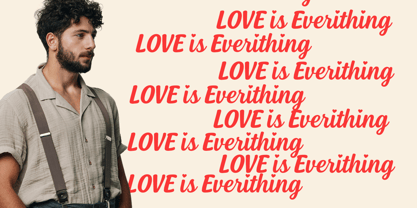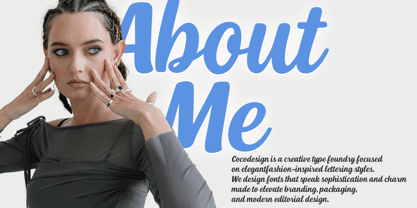
Marline
by Cocodesign
The Marline Font Family was designed by Muhammad Zaini and published by Cocodesign. Marline contains 2 styles and family package options. More about this family
Marline – Modern Handwritten Script Marline is a modern handwritten script that combines love and elegance in every stroke. With smooth curves, slightly bold lines, and a natural handwritten flow, Marline brings a warm, feminine, and graceful touch to any design. The charming heart dot on the “i” adds a romantic detail, making it perfect for wedding invitations, fashion branding, logos, and aesthetic quotes.
Designers: Muhammad Zaini
Foundry: Cocodesign